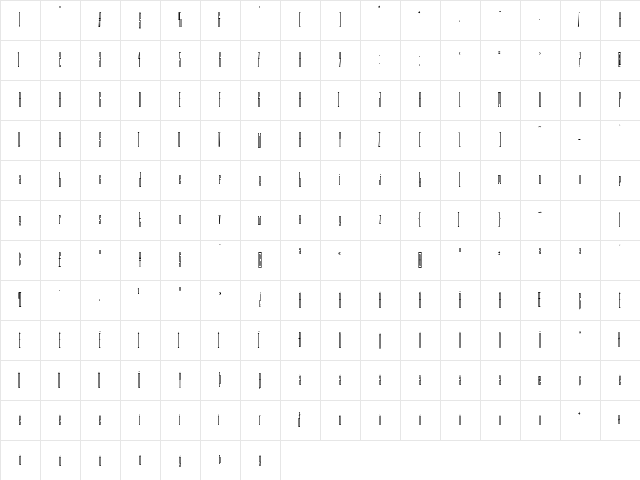
Long Rider Alternative Regular
| Foundry | Wing's Art Studio |
| Designer | Christopher King |
Design Context for Long Rider Alternative Typeface
Long Rider Alternative is a composed and adaptable typeface that performs quietly and consistently across a wide range of design contexts.